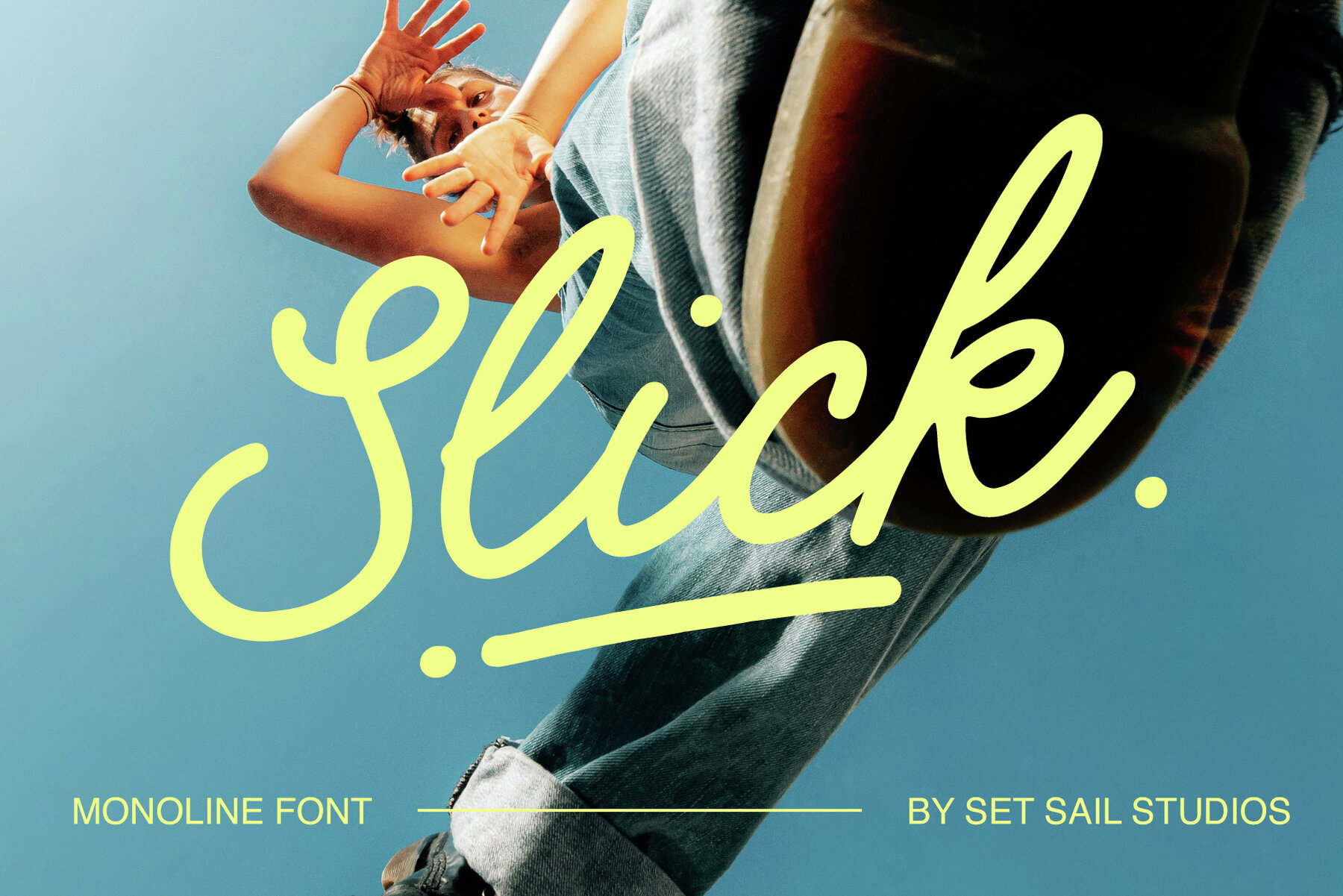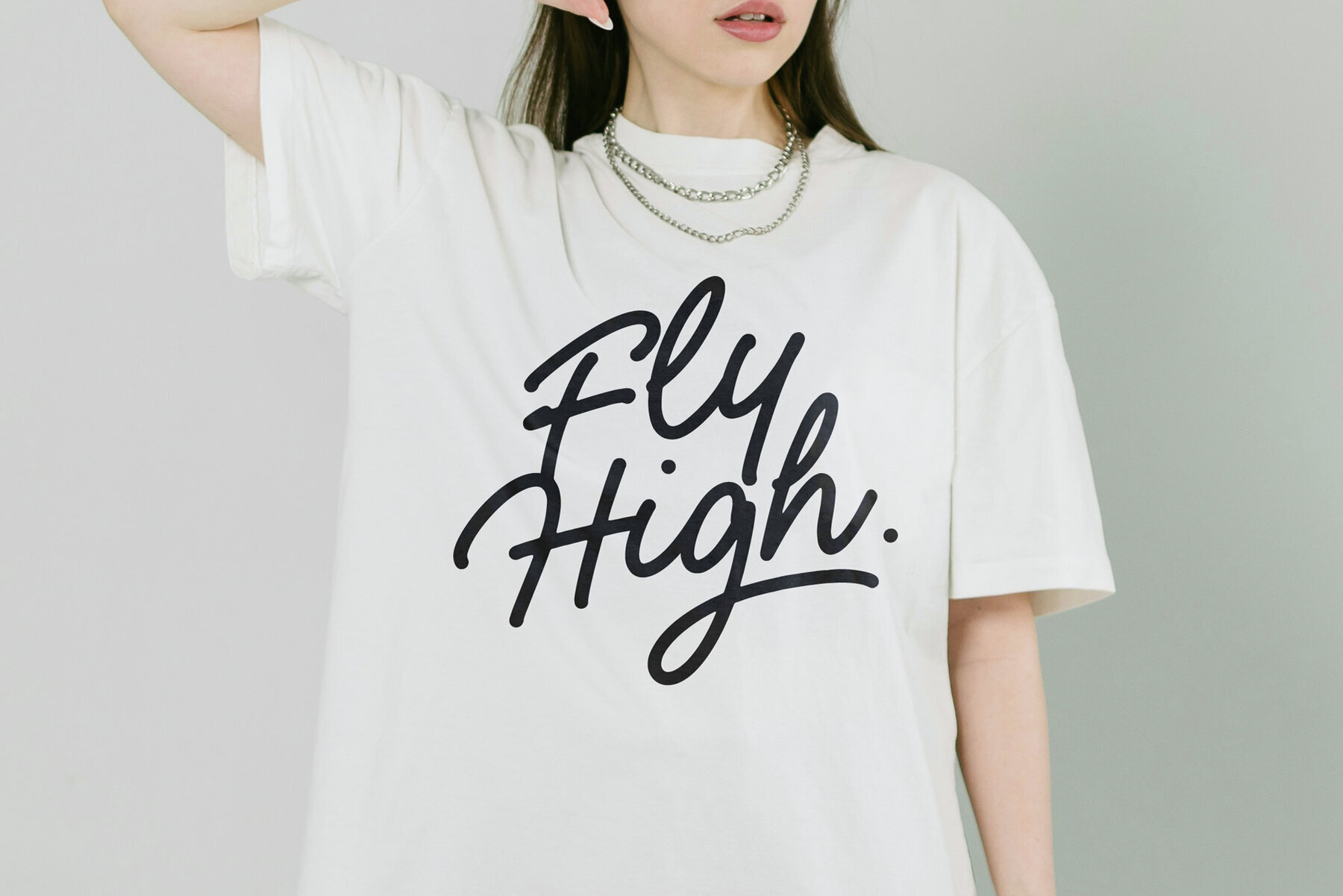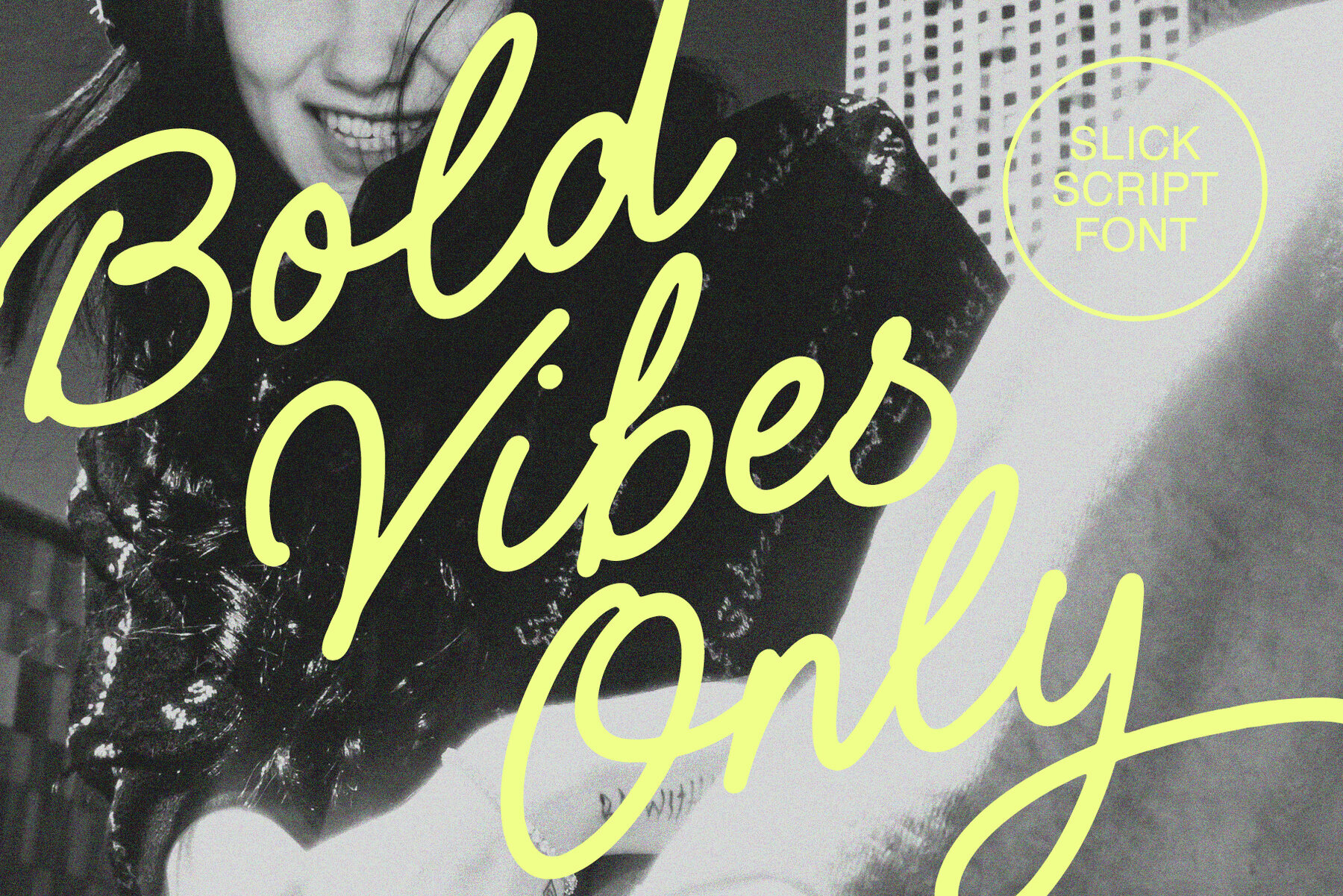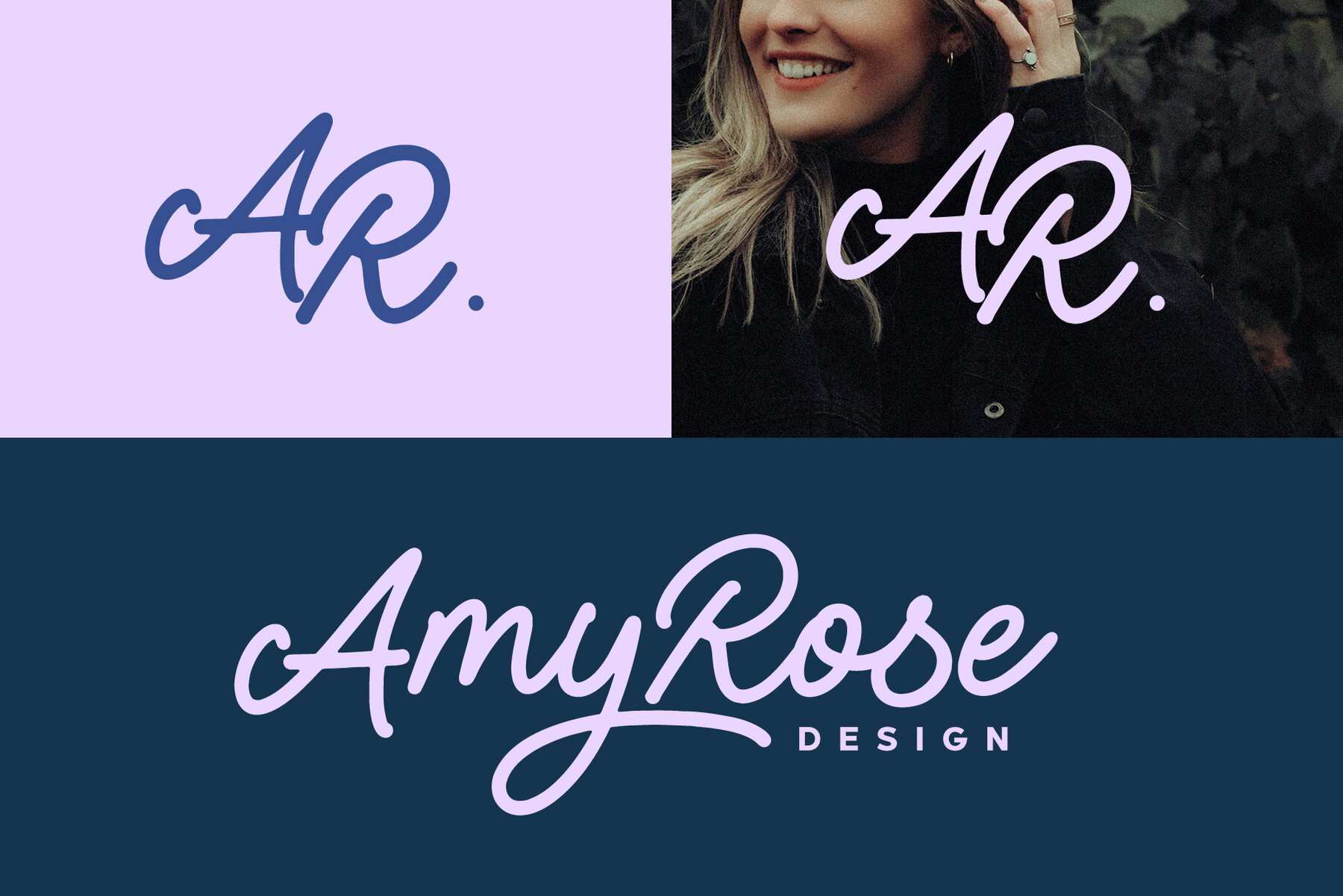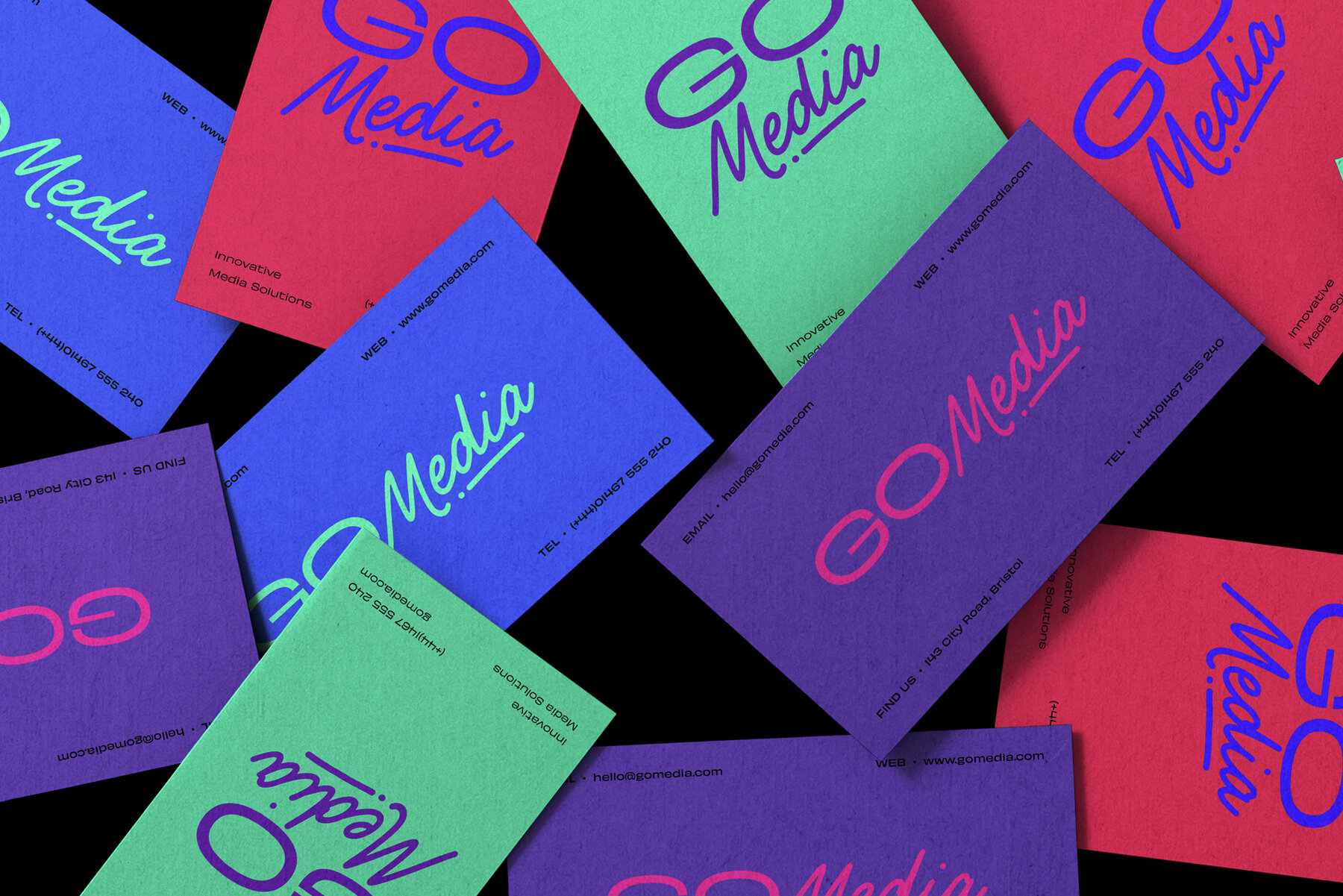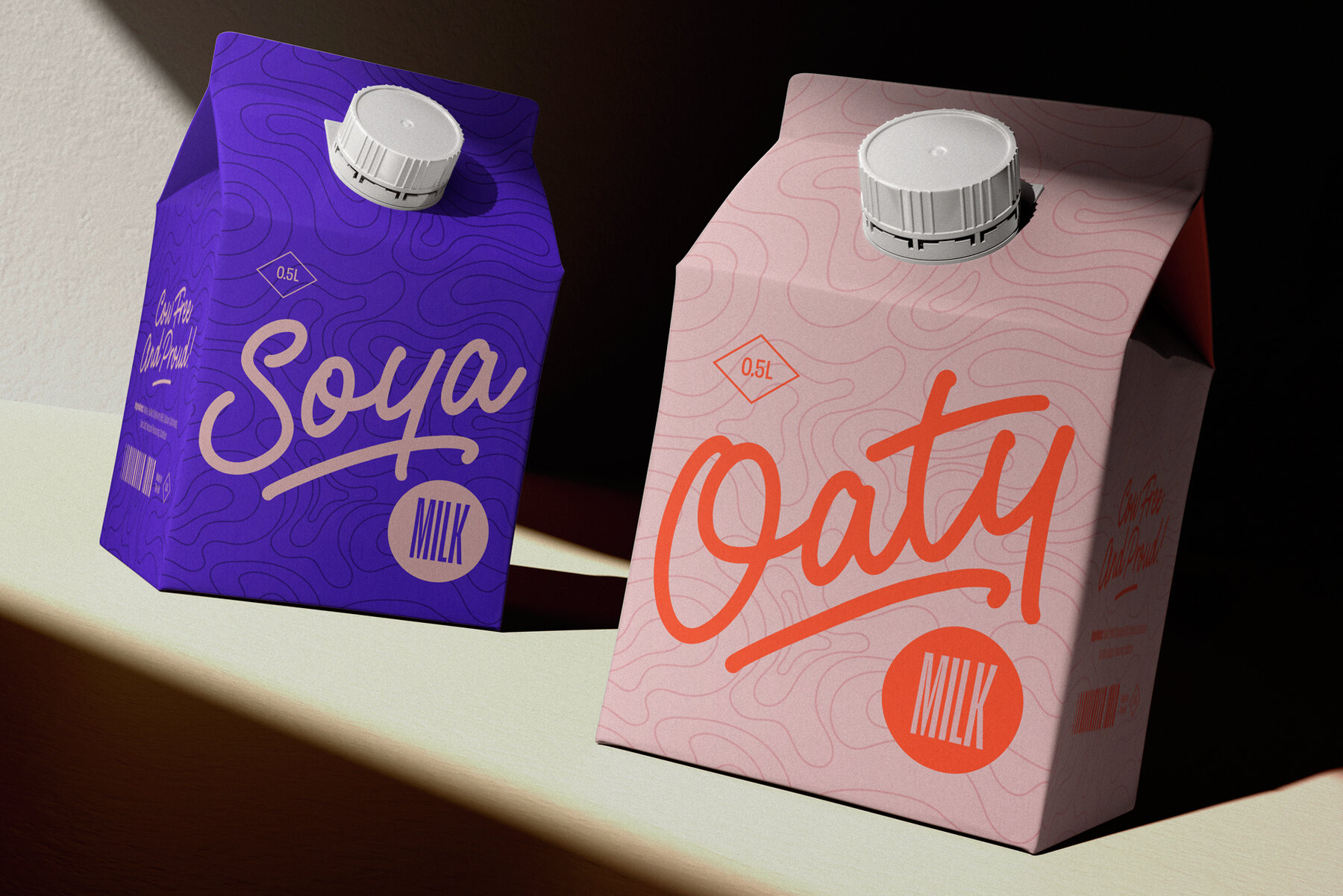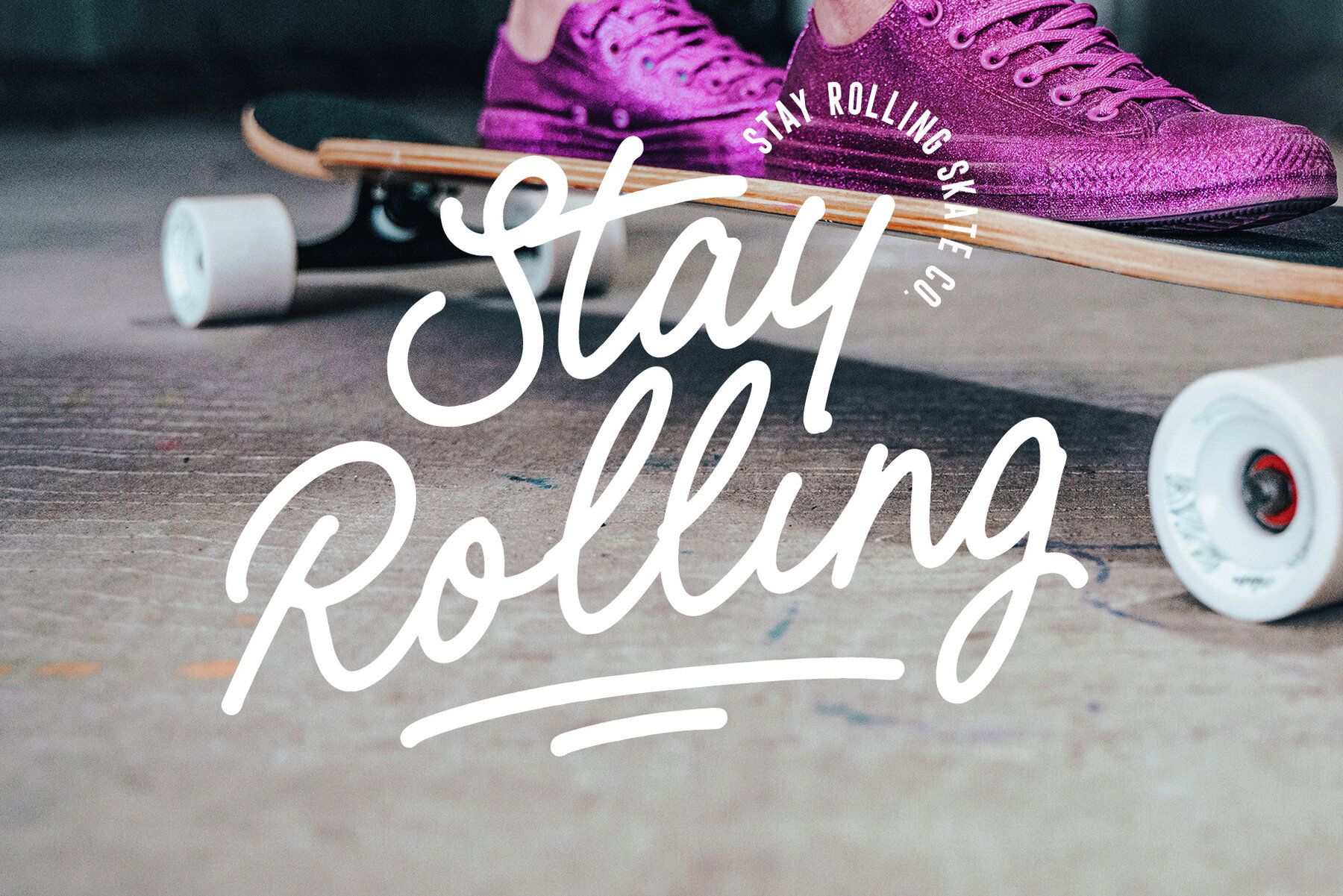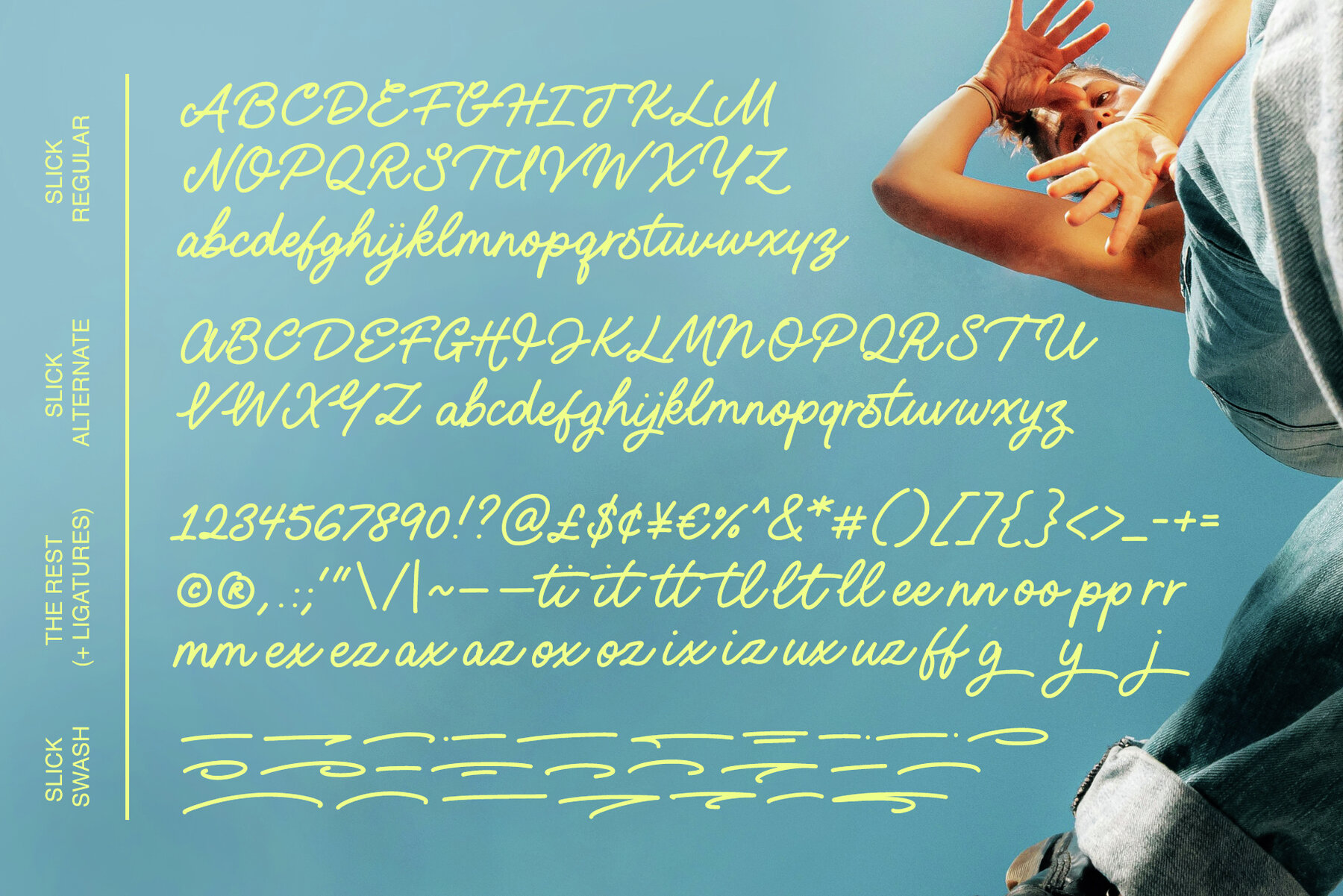
Slick Script Font
Introducing the Slick Font! A cool, clean, silky smooth monoline script font ready to add some fresh & fun-loving cursive type to your designs. Slick is packed full of extra features —alongside the Regular full set of characters, there is also a full Alternate set of upper & lowercase characters available in a separate font, as well as 26 Swashes, great for underlining your Slick font, also available as it’s own font (simply type any a-z letter to generate a swash). Slick also includes 23 ligatures (double letter combinations) to help letters flow more naturally and give you even more layout options. Simply turn on ‘Standard Ligatures’ to access these characters, or input them via a Glyphs panel. Slick is a highly versatile script font, perfect for a range of design briefs. Whether it’s playful quotes, poppin’ merch and packaging designs, or super clean brand packages—Slick is sure to deliver the goods, with added style. Language Support • English, French, Italian, Spanish, Portuguese, German, Swedish, Norwegian, Danish, Dutch, Finnish, Indonesian, Malay, Hungarian, Polish, Croatian, Turkish, Romanian, Czech, Latvian, Lithuanian, Slovak, Slovenian.
Sam Parrett, the creative force behind Set Sail Studios, is a UK-based graphic designer renowned for his unique approach to typography and font creation. With a rich background in designing graphics for the music industry, Sam channeled his passion for lettering and typography into launching Set Sail Studios i...